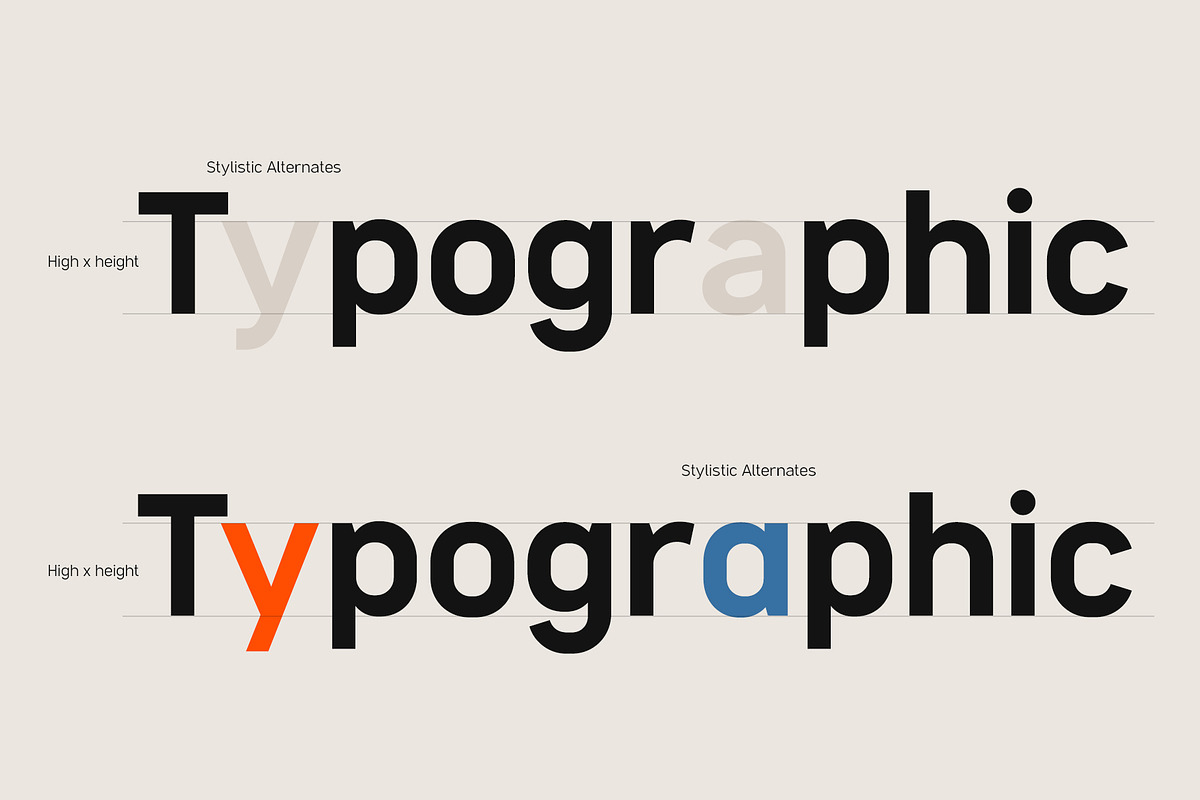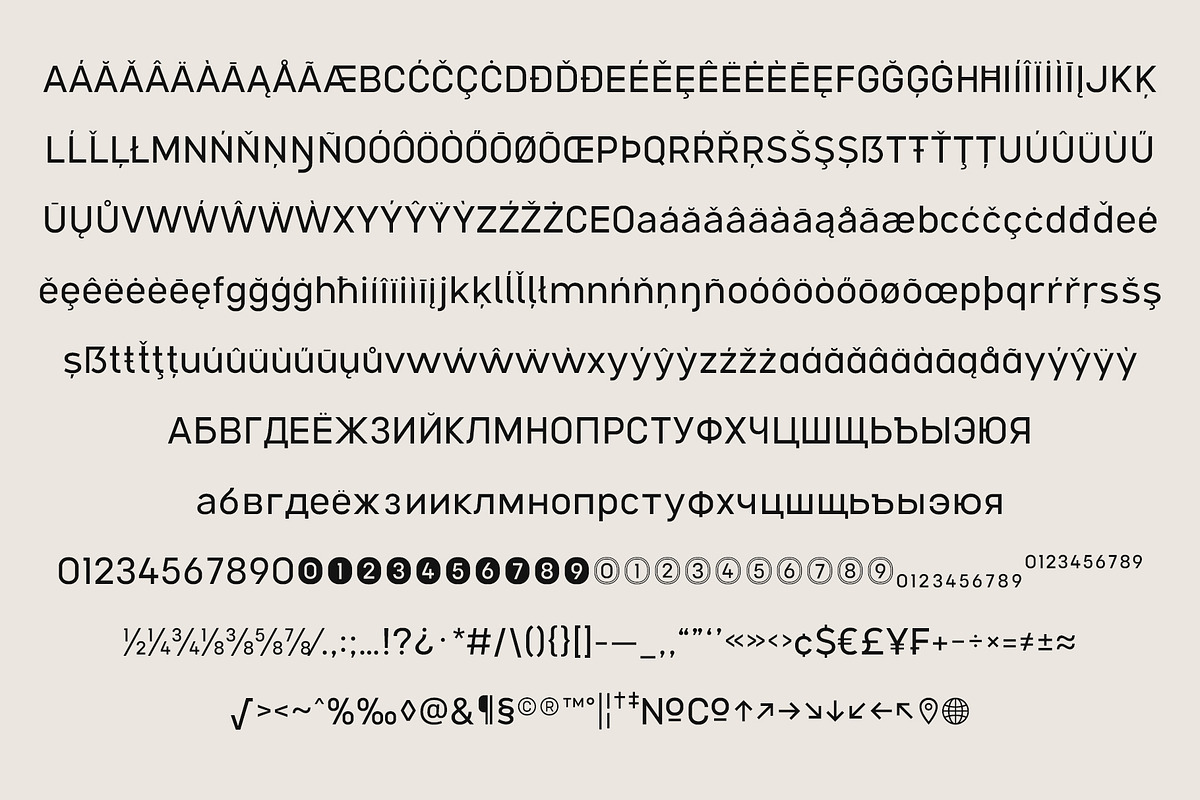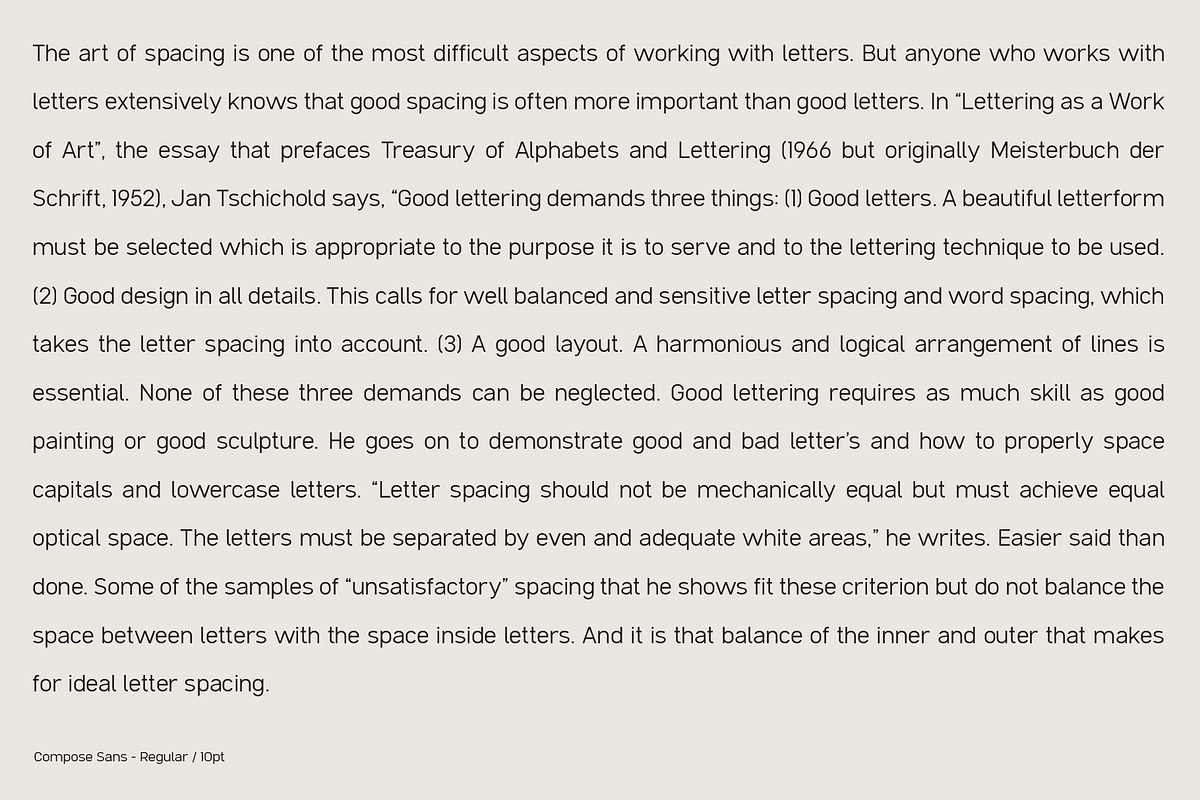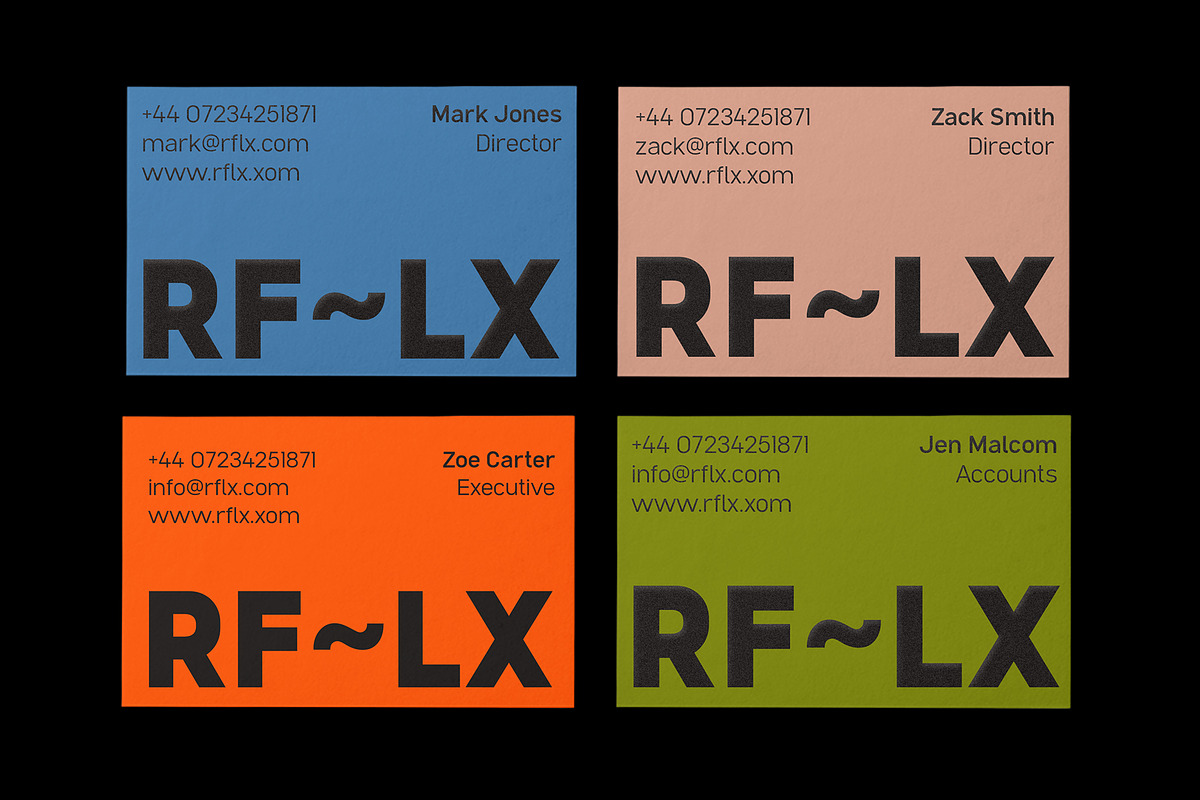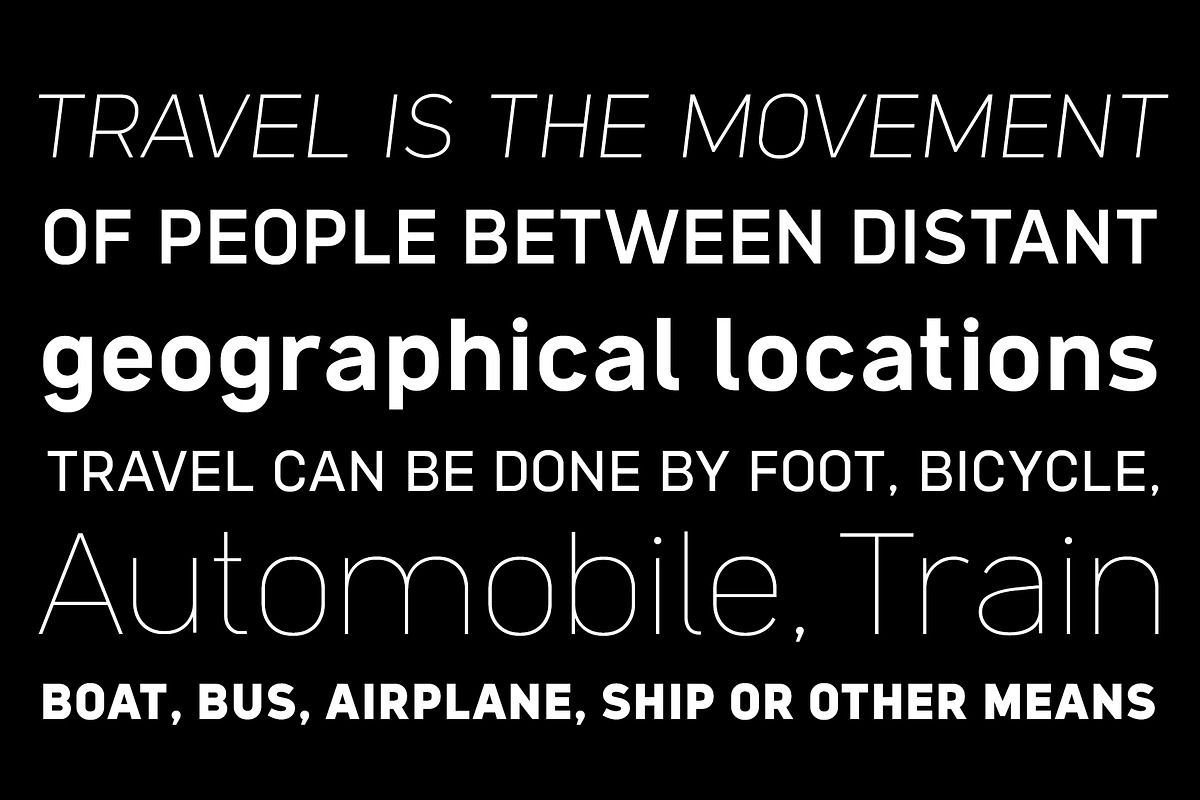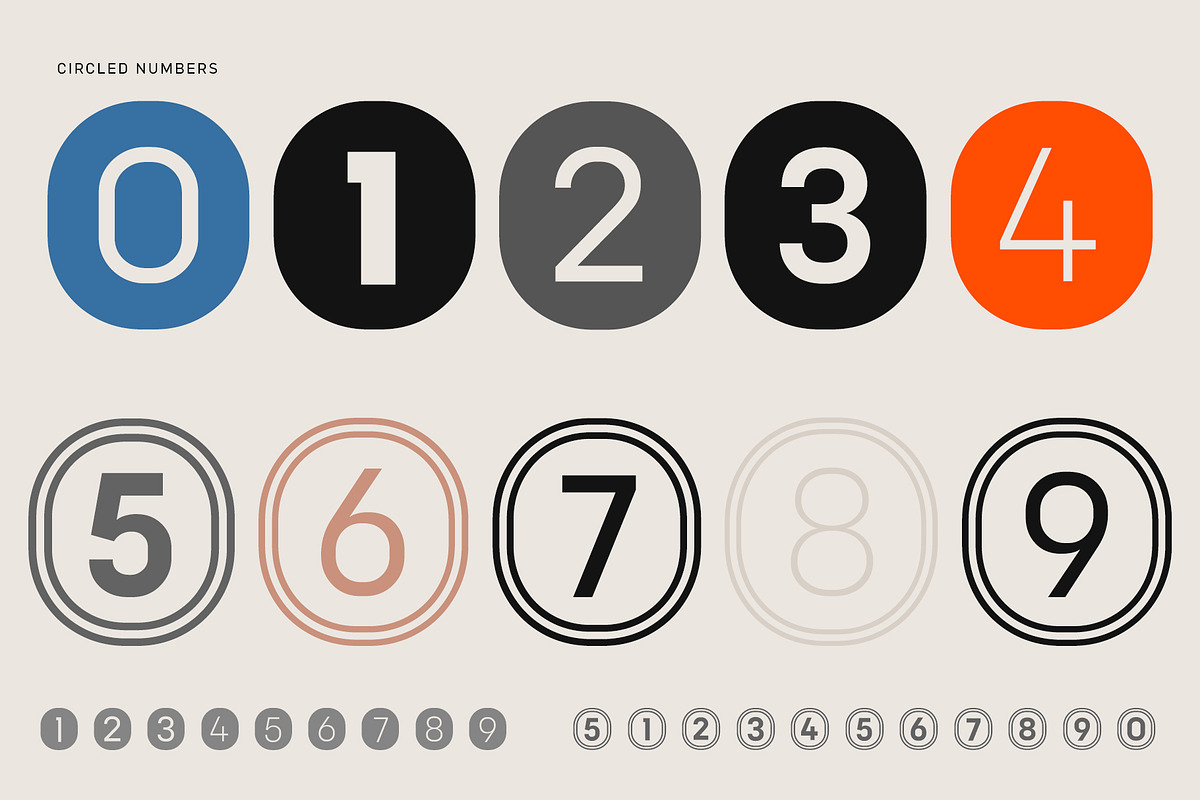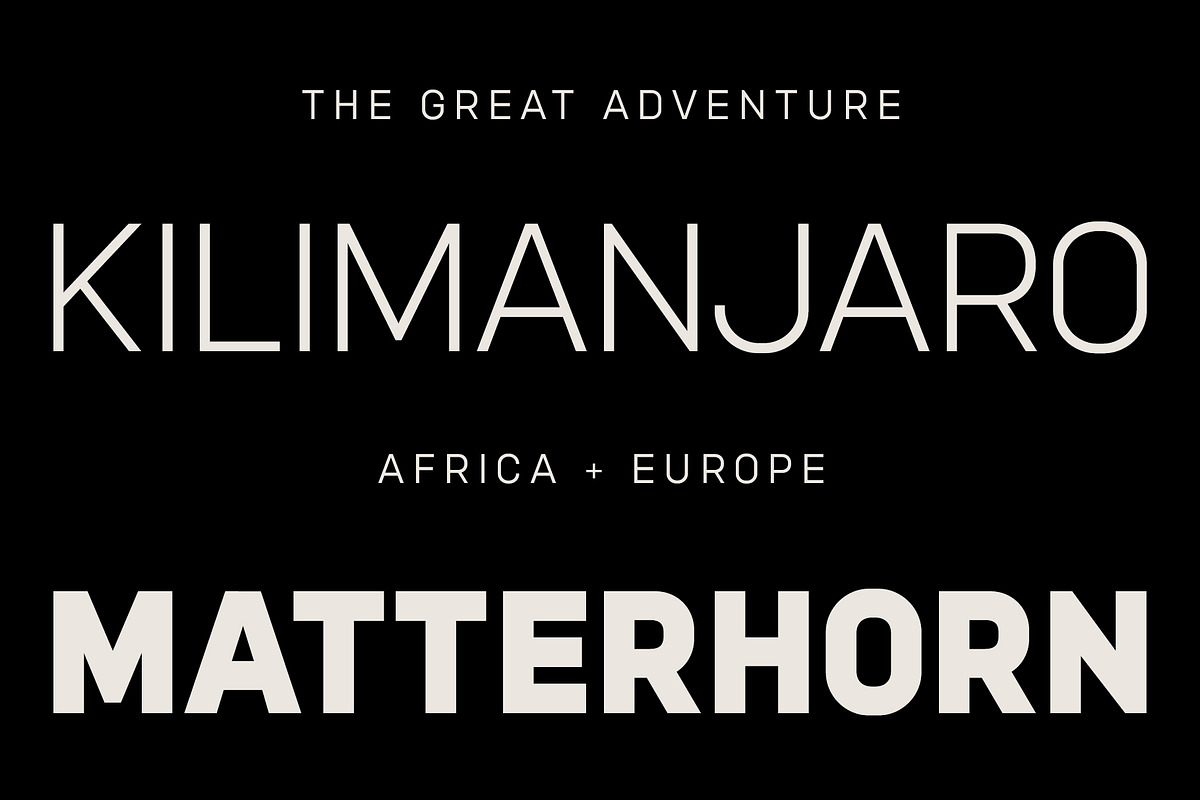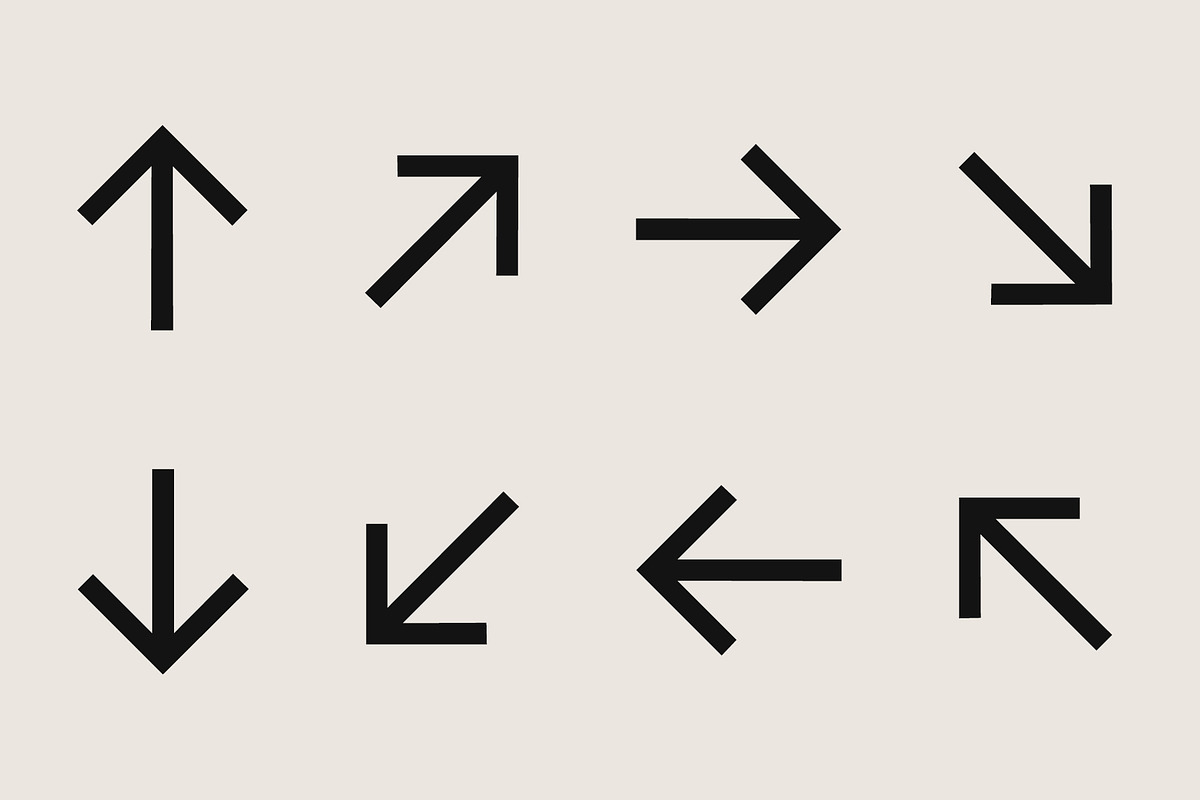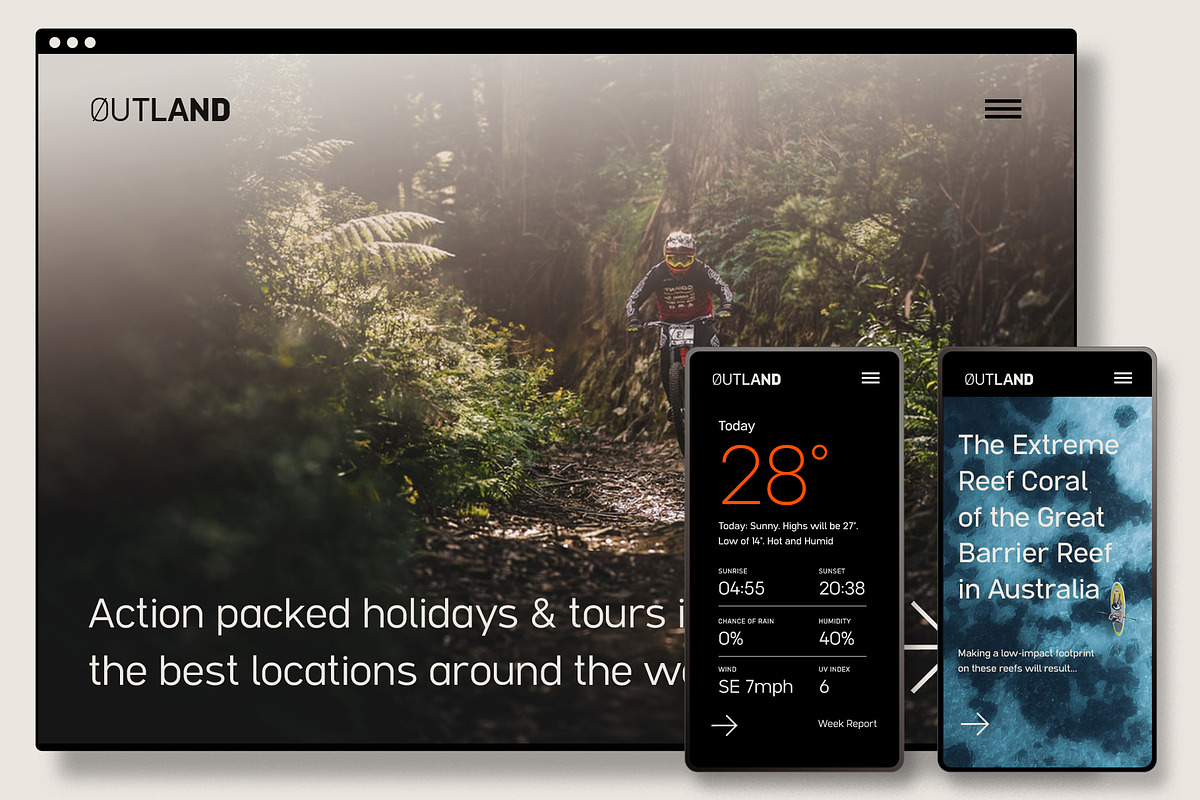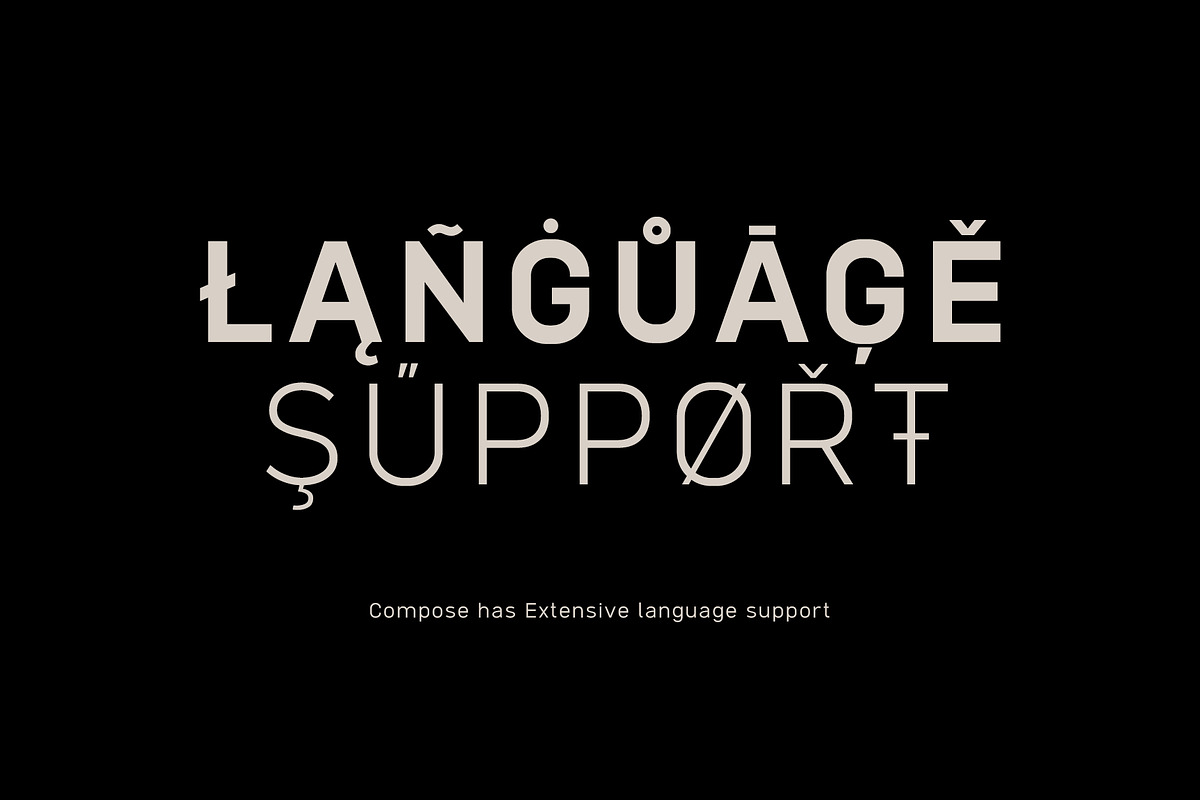
Compose
Compose is a new minimal and modern Sans-Serif typeface. It has nine weights each with an oblique version. Compose has a range of opentype features some of which include alternates, circled numbers, small figures and more.
Compose is a versatile font family perfect for print, advertising, digital design usage, website, apps ,ebooks etc. With a high x height, Compose works well at small sizes and can easily become a go to everyday font.
- Nine weights and obliques
- Extensive Latin and Cyrillic support
- OpenType features including alternates and circled numbers